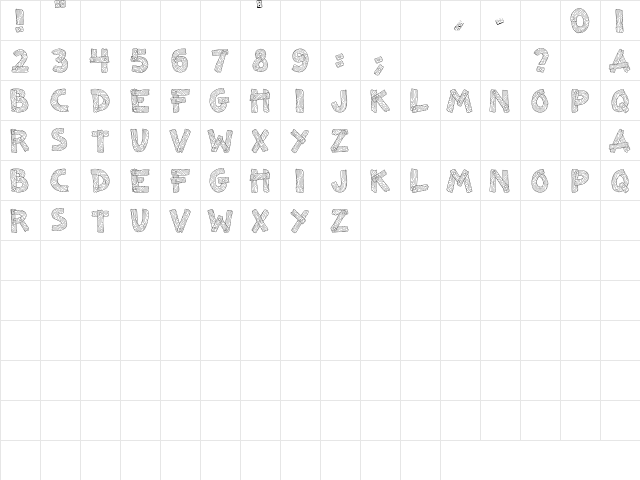
Doodle Wood Regular
Doodle Wood taps into classic Western woodtype traditions — bold, characterful, and impossible to ignore.
A natural fit for craft spirits, ranch branding, rodeo events, and Americana-inspired design work.
Font Pairing: Combine Doodle Wood with a simple slab or neutral sans — period-accurate companions reinforce the vintage feel without competing for attention.
Pro Tip: Use Doodle Wood for short, impactful bursts of text — it shines in poster headlines and product names rather than extended copy.